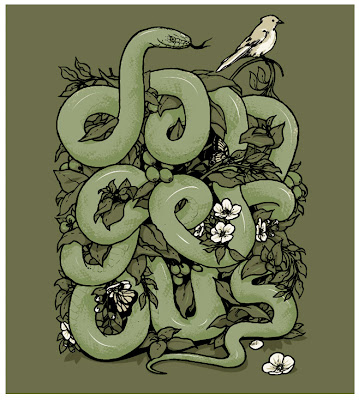
Here is a T-Shirt Design I found on Threadless.com, "Dangerous." This was done by a designer named "Draco." Unfortunately, his website doesn't show any additional work or information, so I'm not going to list it. I think it's cool how the snake forms the word! Threadless recently held a design competition for creative typography, and the winner should be announced shortly, so that might be something neat to check out in the near future. Visit: www.Threadless.com